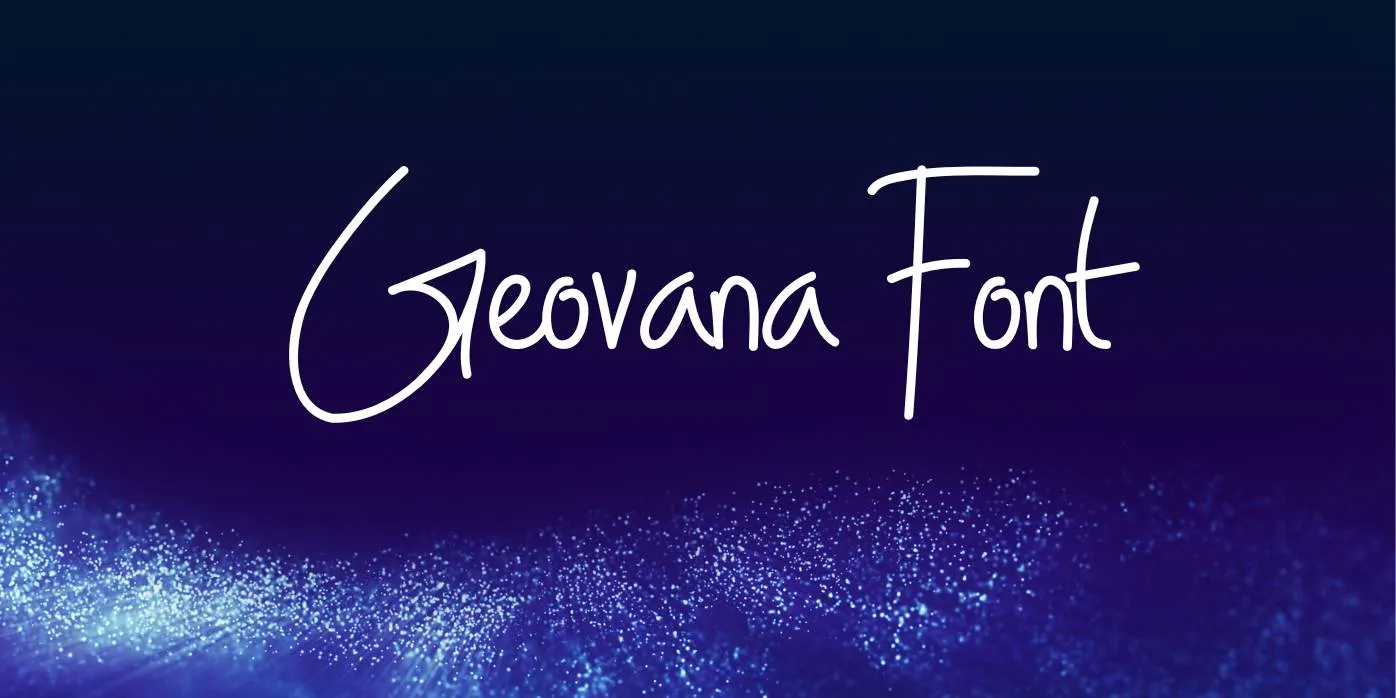
Geovana Font
Geovana Font is a handwritten type of font. MadeDeduk is the designer of this typeface. There is only one style for this typeface which is regular. The glyphs for this typeface are 60. You can get this font from this website in both OTF [OpenType font] and TTF [TrueType font] formats.